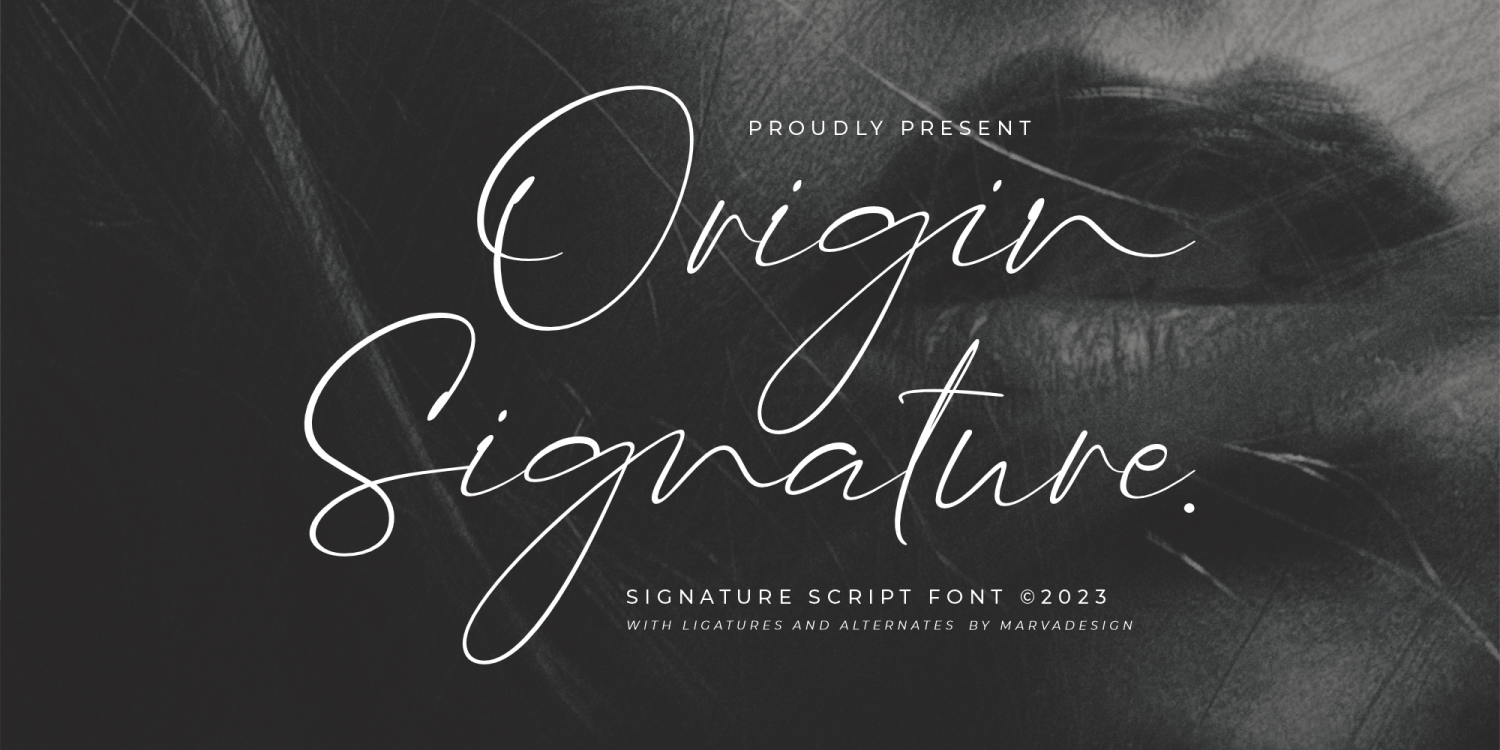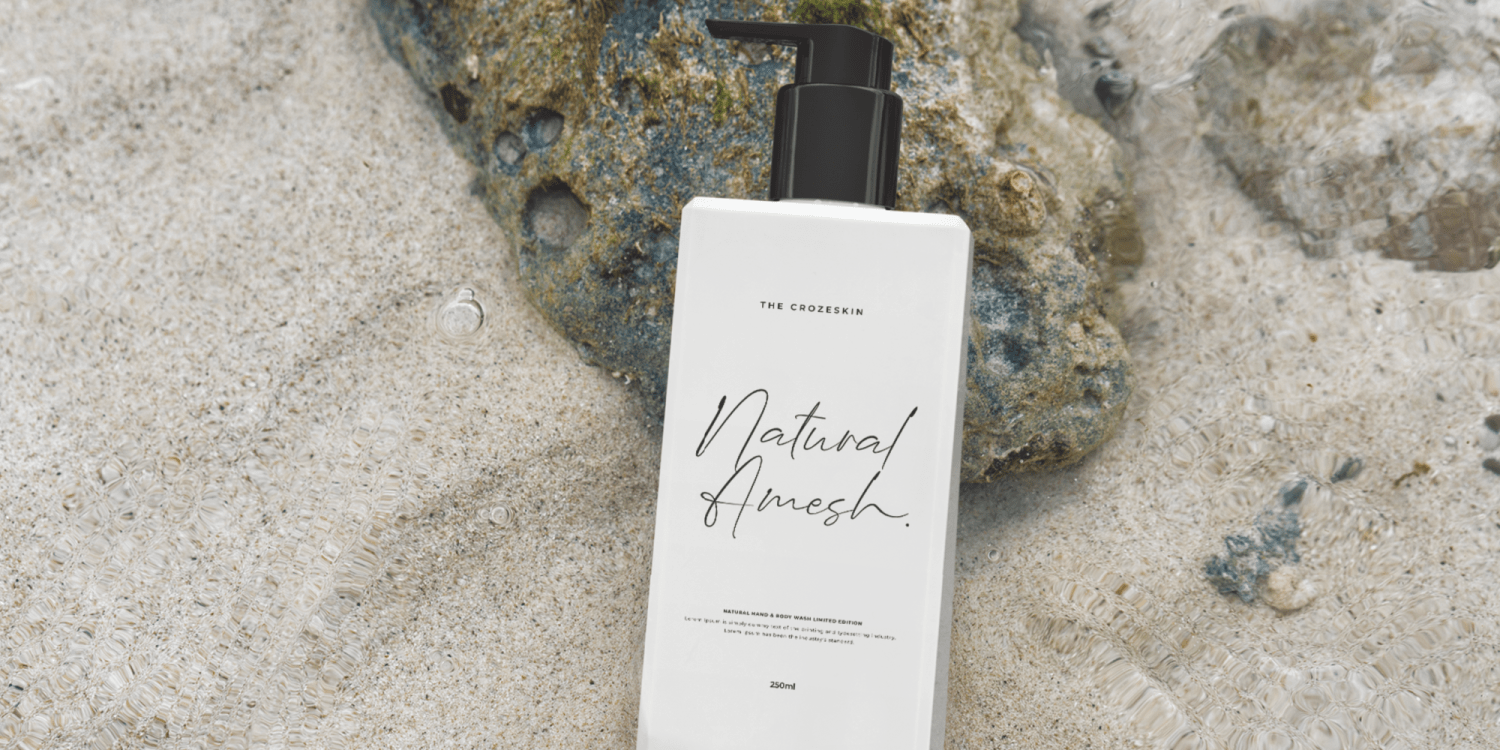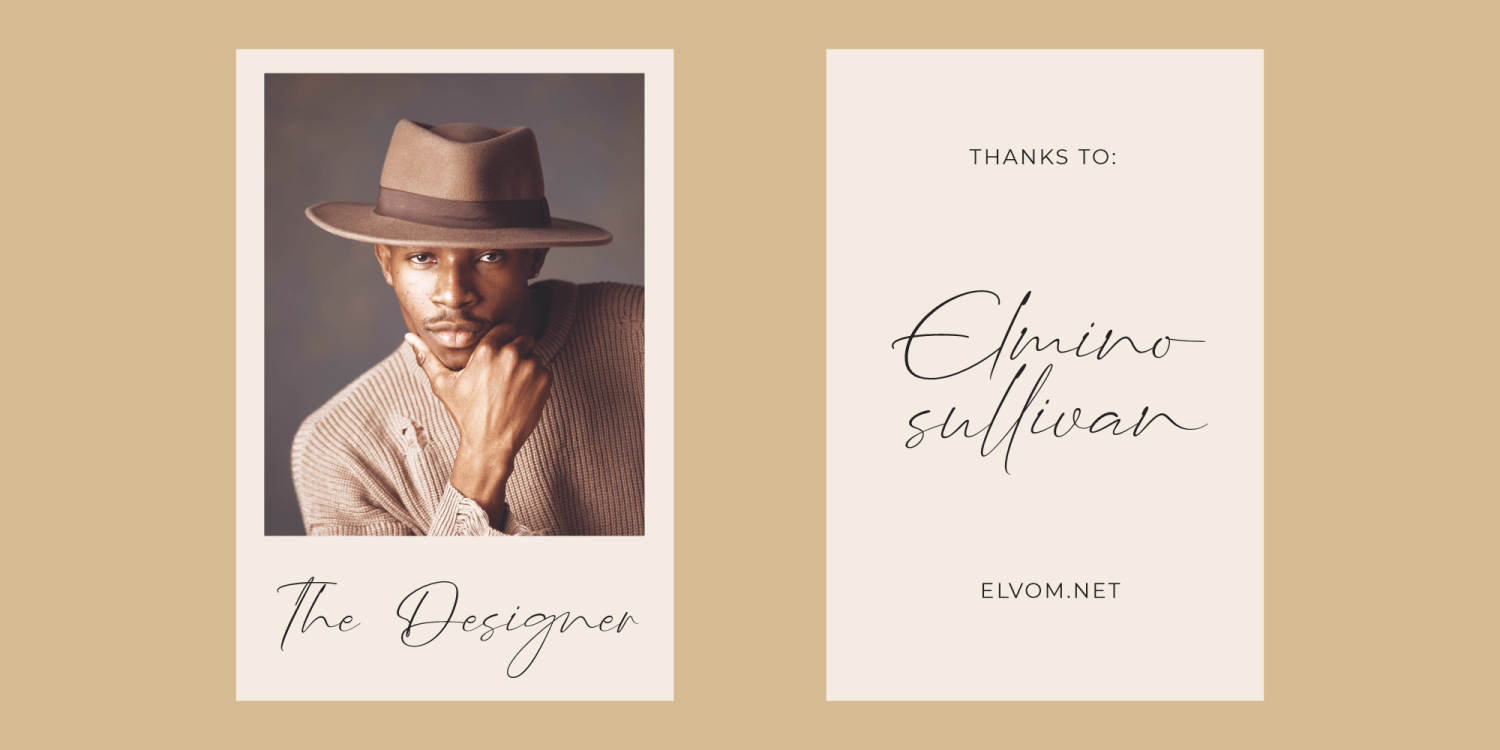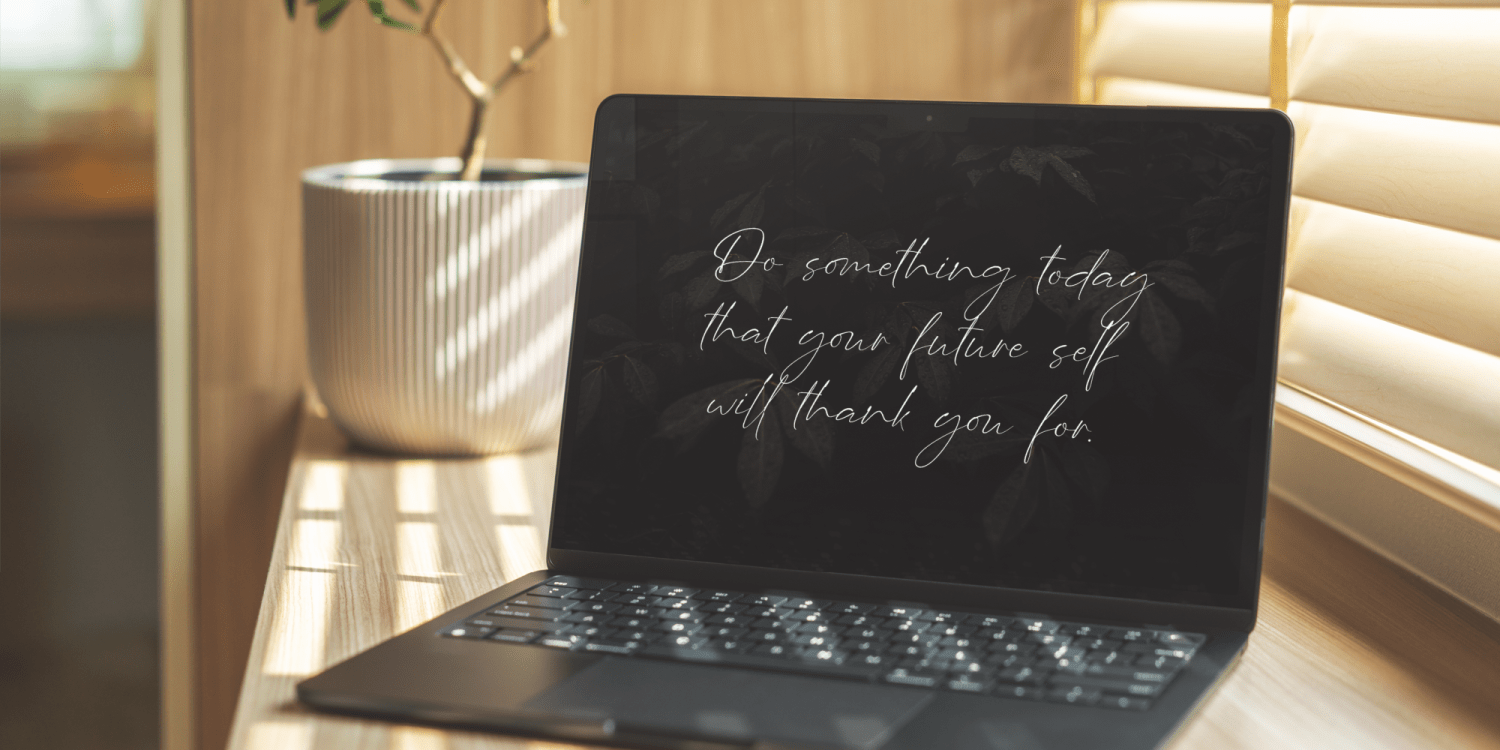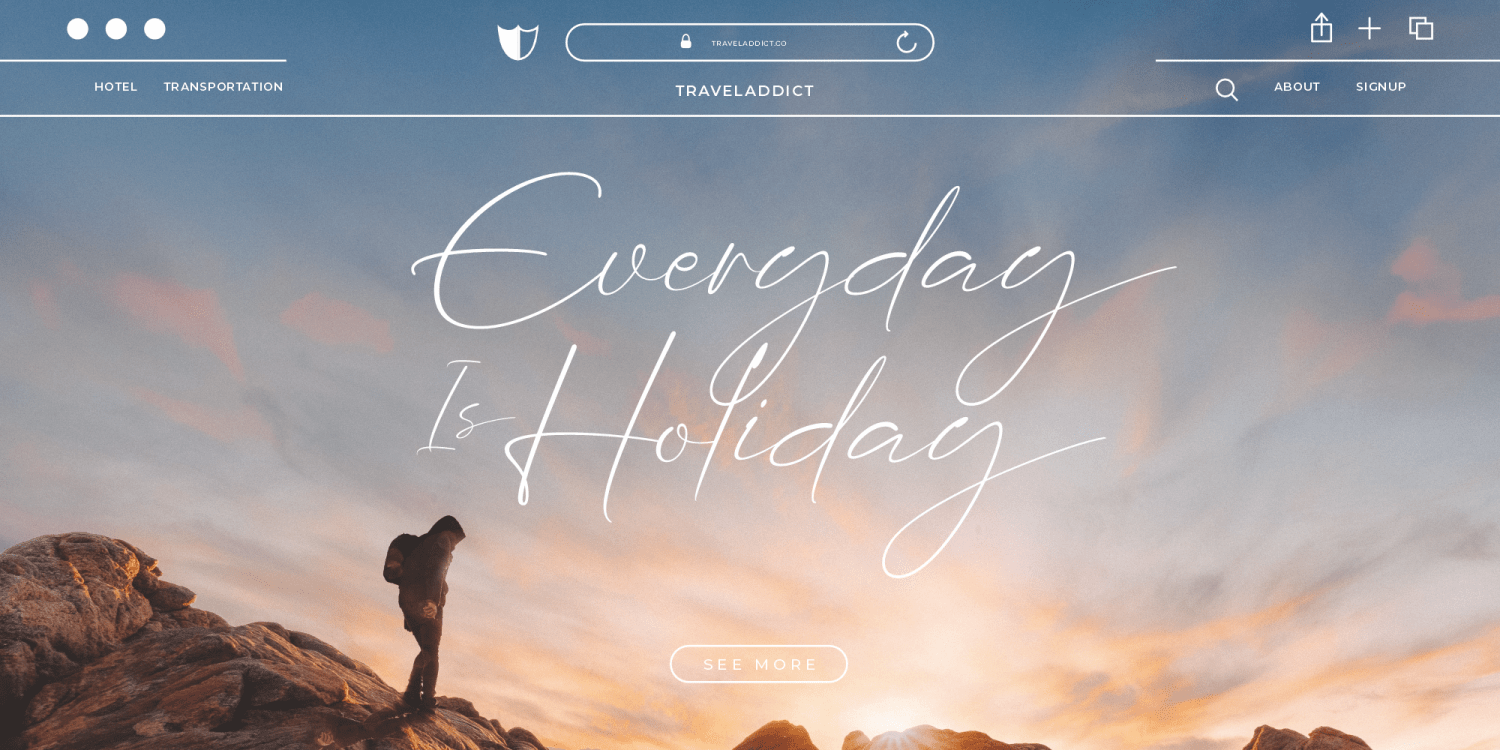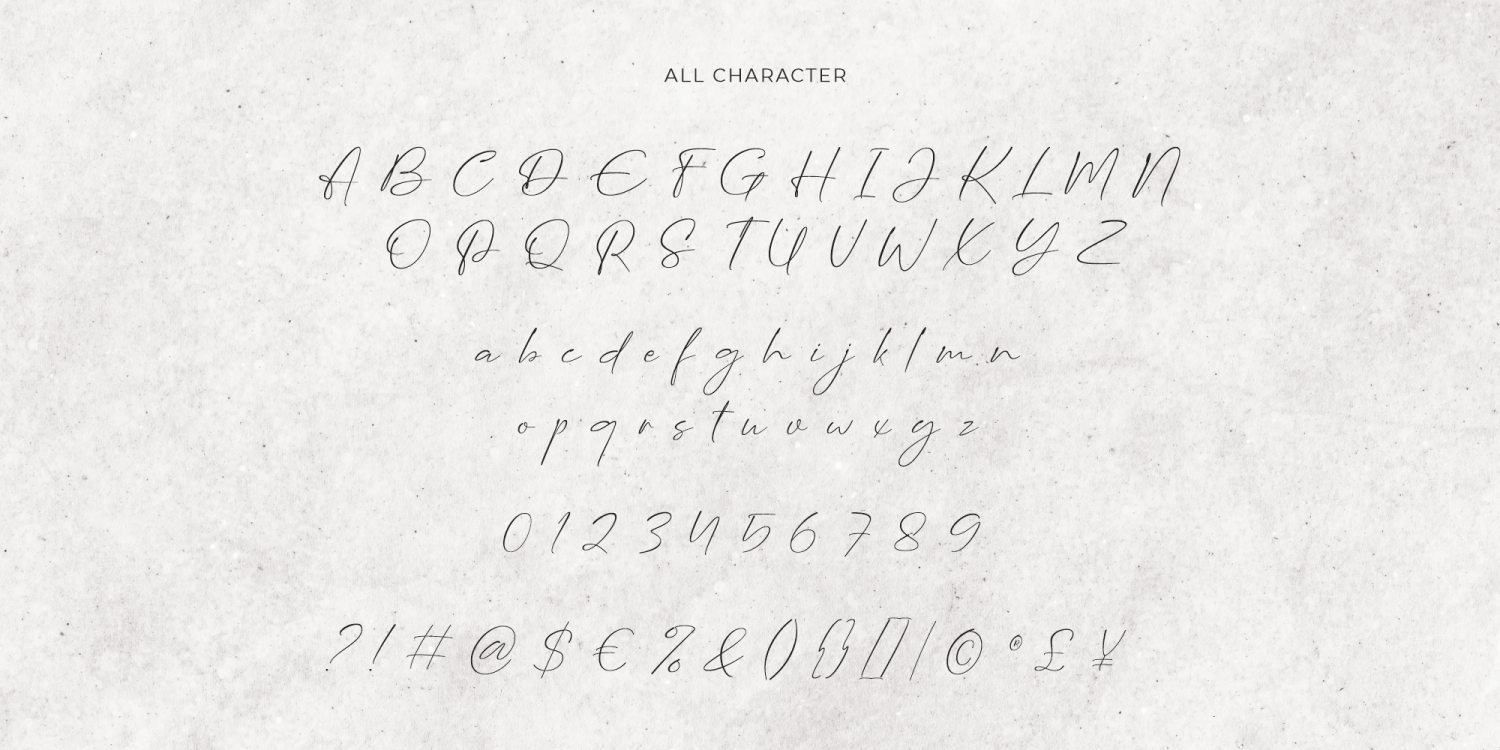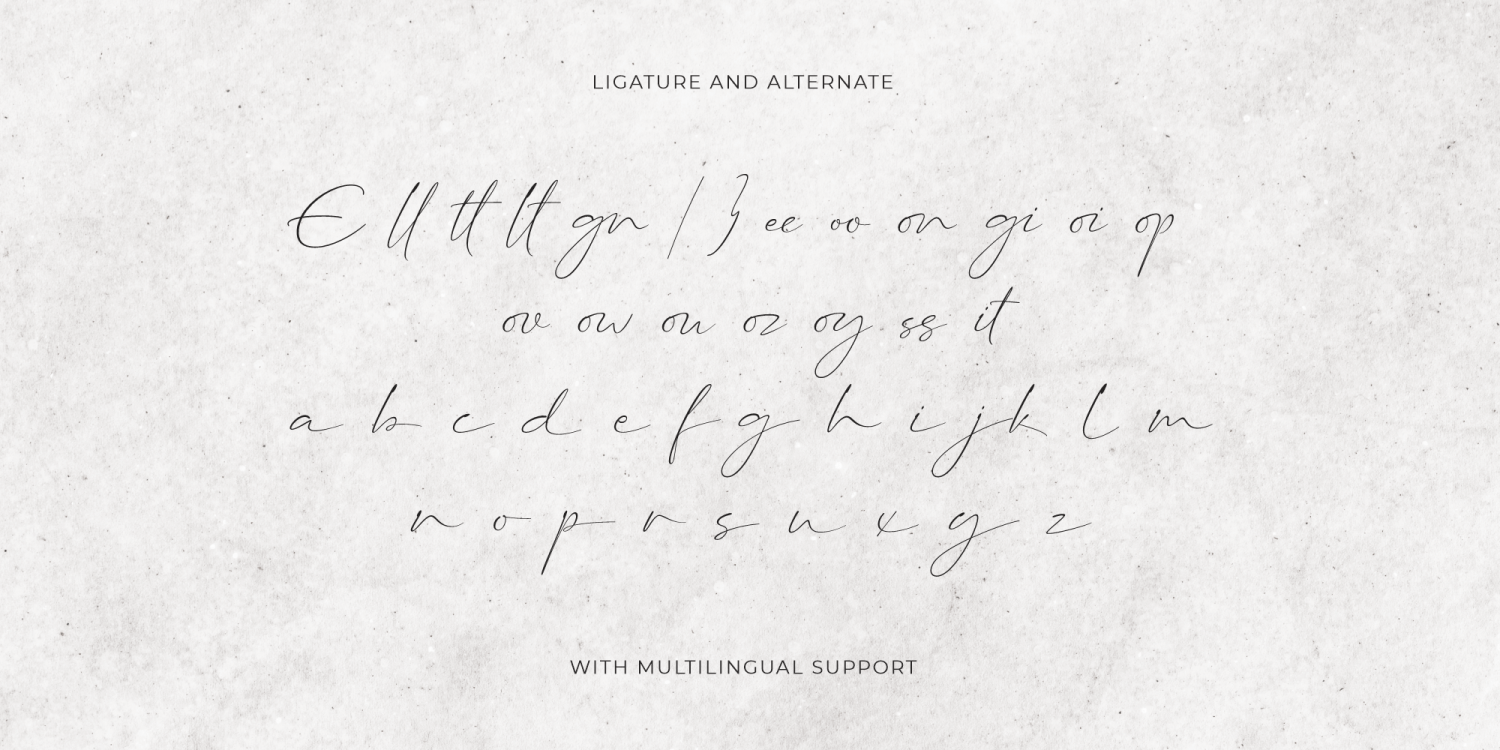
Origin Signature
Introducing Origin Signature is a refined and elegant signature script typeface that exudes sophistication and luxury. It features smooth, flowing letterforms with graceful curves, mimicking the natural strokes of a handwritten signature. The delicate yet expressive ligatures and alternates add an artistic touch, making it an excellent choice for branding, packaging, invitations, and editorial designs.
The typography maintains a perfect balance between modern minimalism and classic calligraphy, with thin, elongated strokes and subtle flourishes that enhance its aesthetic appeal. The high contrast between thick and thin lines contributes to a refined and high-end visual impression. Its natural, handwritten style conveys a personal and authentic feel, making it ideal for brands seeking a sense of exclusivity and elegance.
Additionally, the font's versatility allows it to adapt seamlessly to various design contexts, whether used in logos, fashion editorials, or promotional materials. It pairs beautifully with both serif and sans-serif typefaces, enhancing its usability across different mediums. The meticulously crafted details and organic flow make this font a timeless choice for designers who aim to achieve an effortlessly chic and sophisticated look.